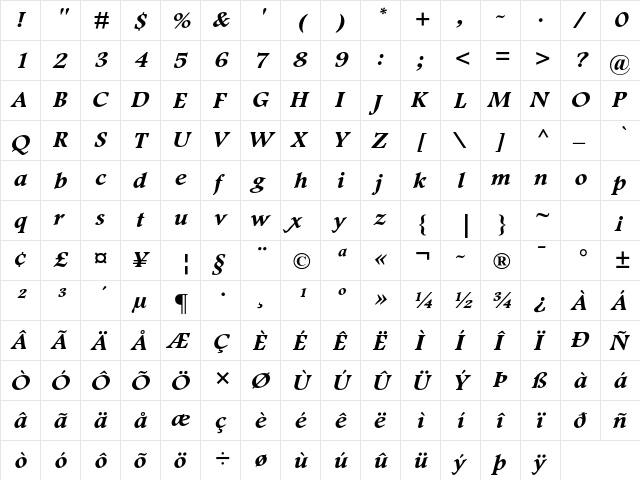
Footlight MT Std Bold Italic
Design Context for Footlight MT Std Typeface
Footlight MT Std offers clean, dependable letterforms without strong stylistic allegiance, making it a practical choice for designers who need flexibility. The dynamic lean of this cut emphasises speed and emphasis in any layout. The heavy weight commands attention and anchors typographic hierarchies.
Pro Tip: Use Footlight MT Std for emphasis, pull quotes, and subheadings where its slanted energy can add rhythm to the layout.